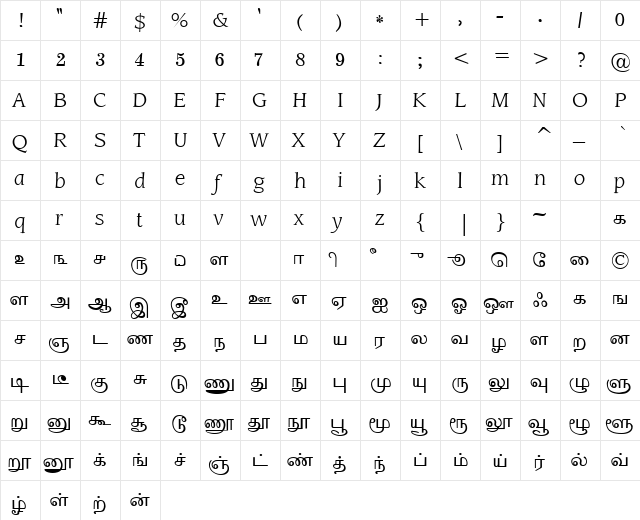
TneriTSC Regular
Design Context for TneriTSC Typeface
TneriTSC offers clean, dependable letterforms without strong stylistic allegiance, making it a practical choice for designers who need flexibility.